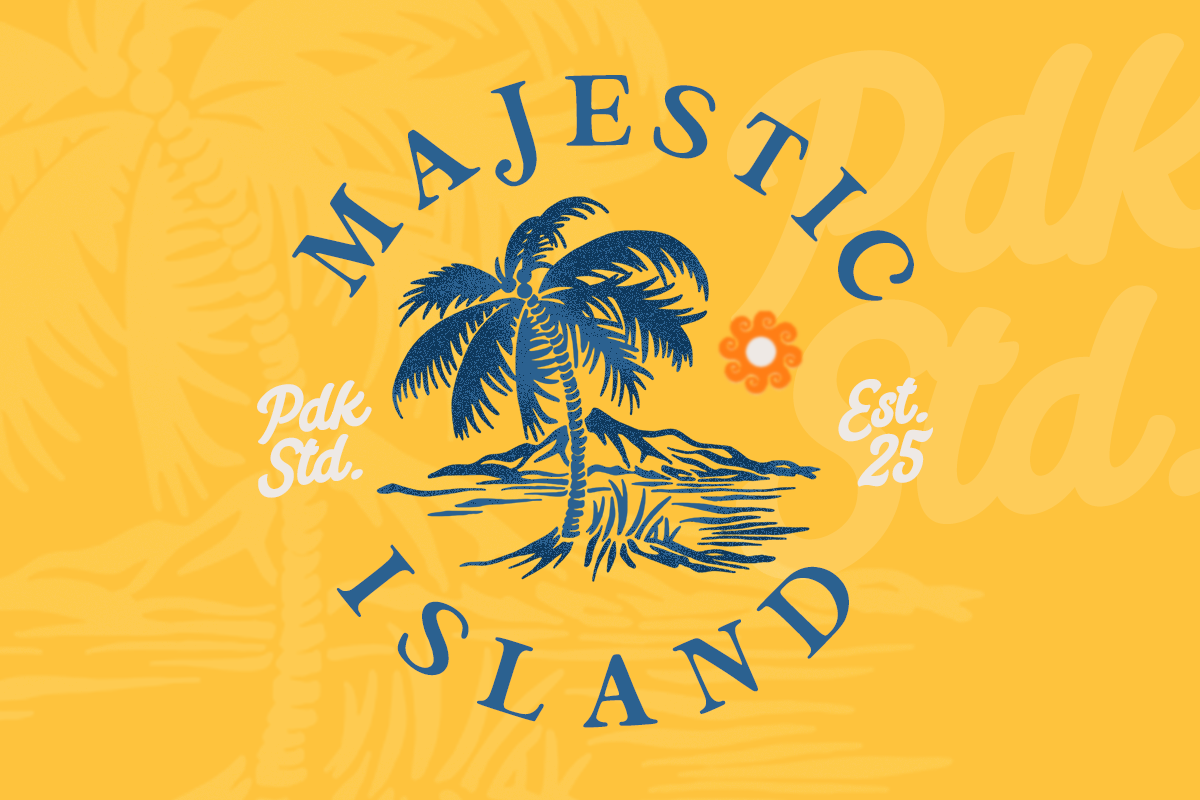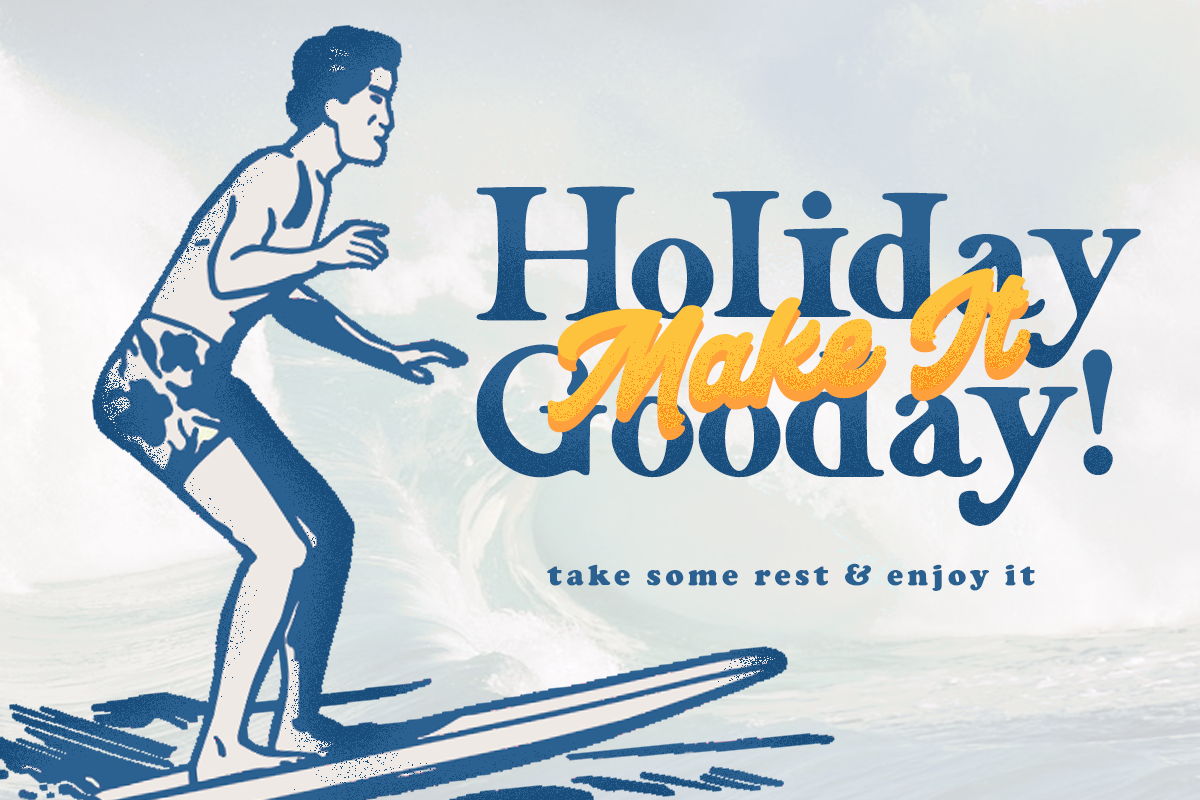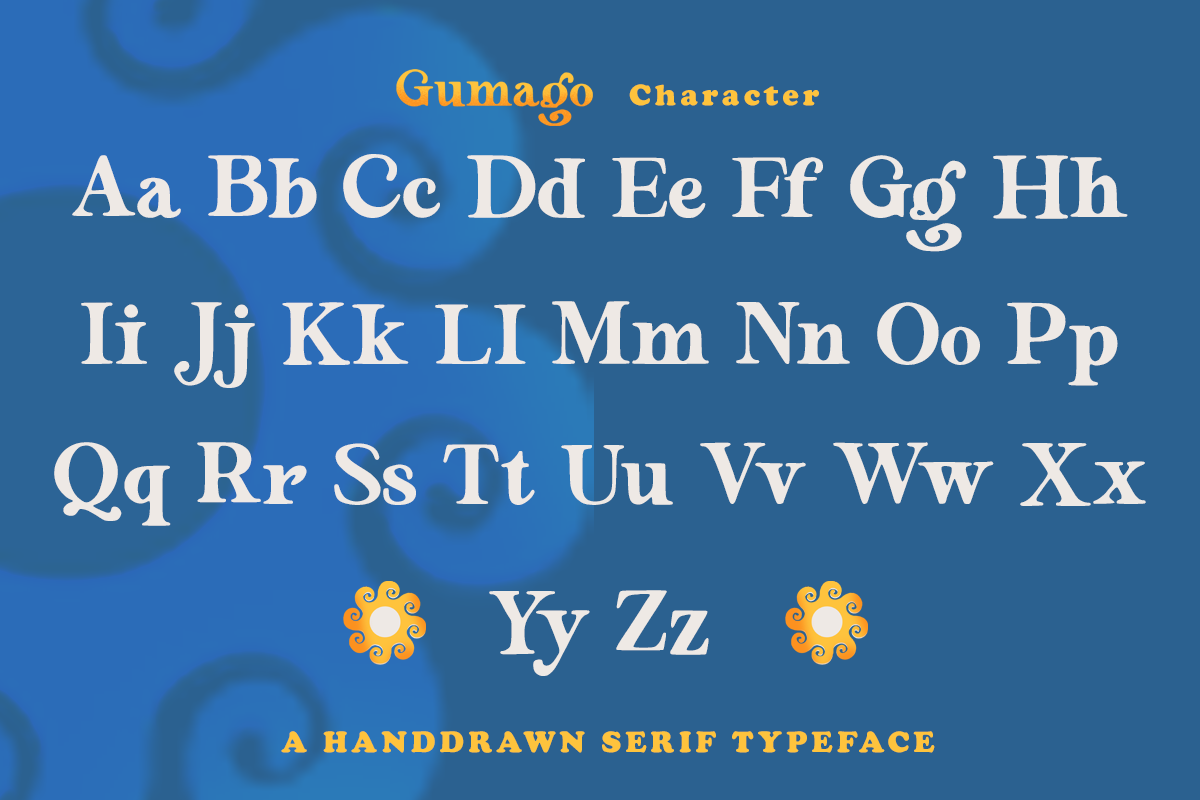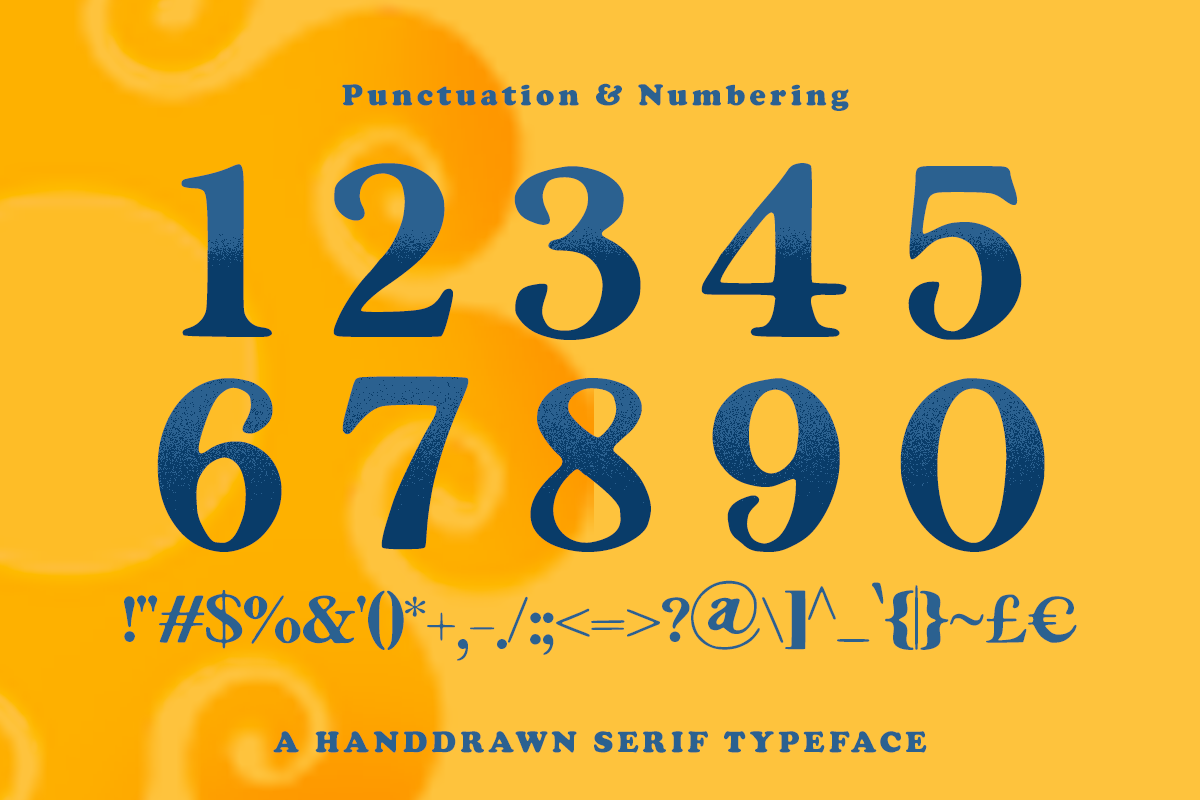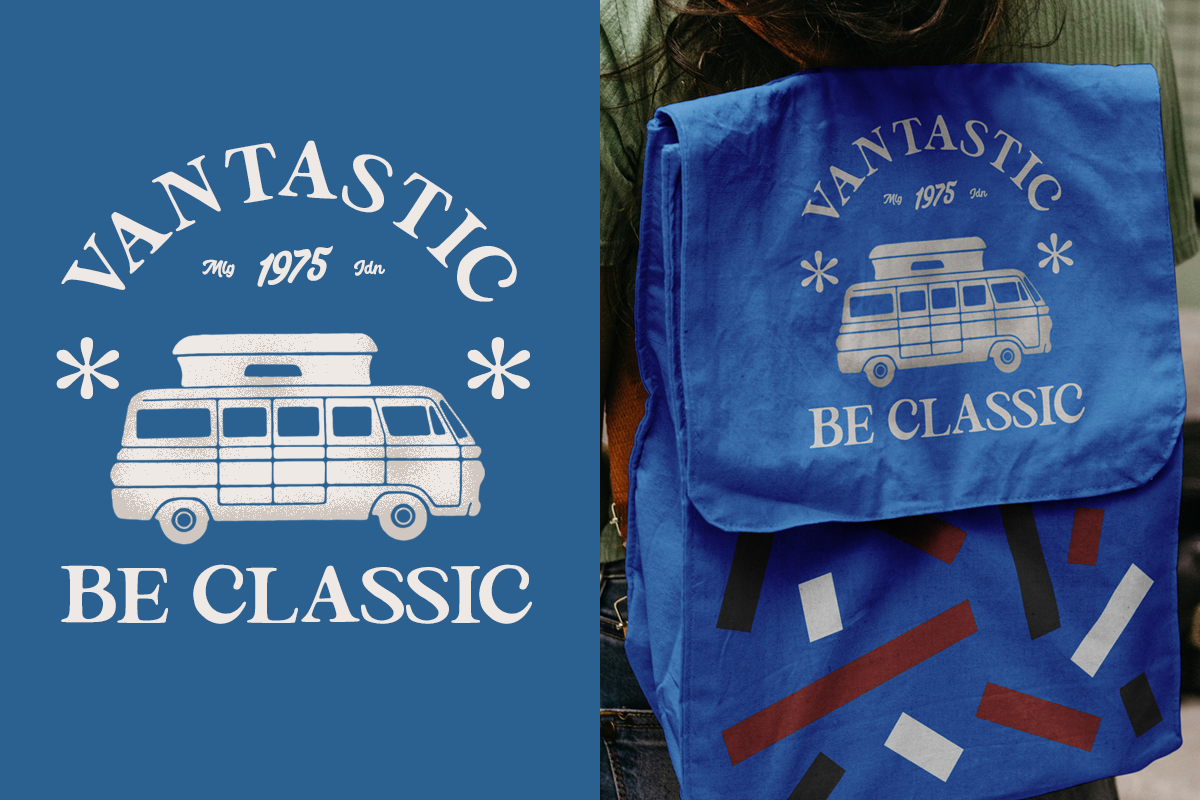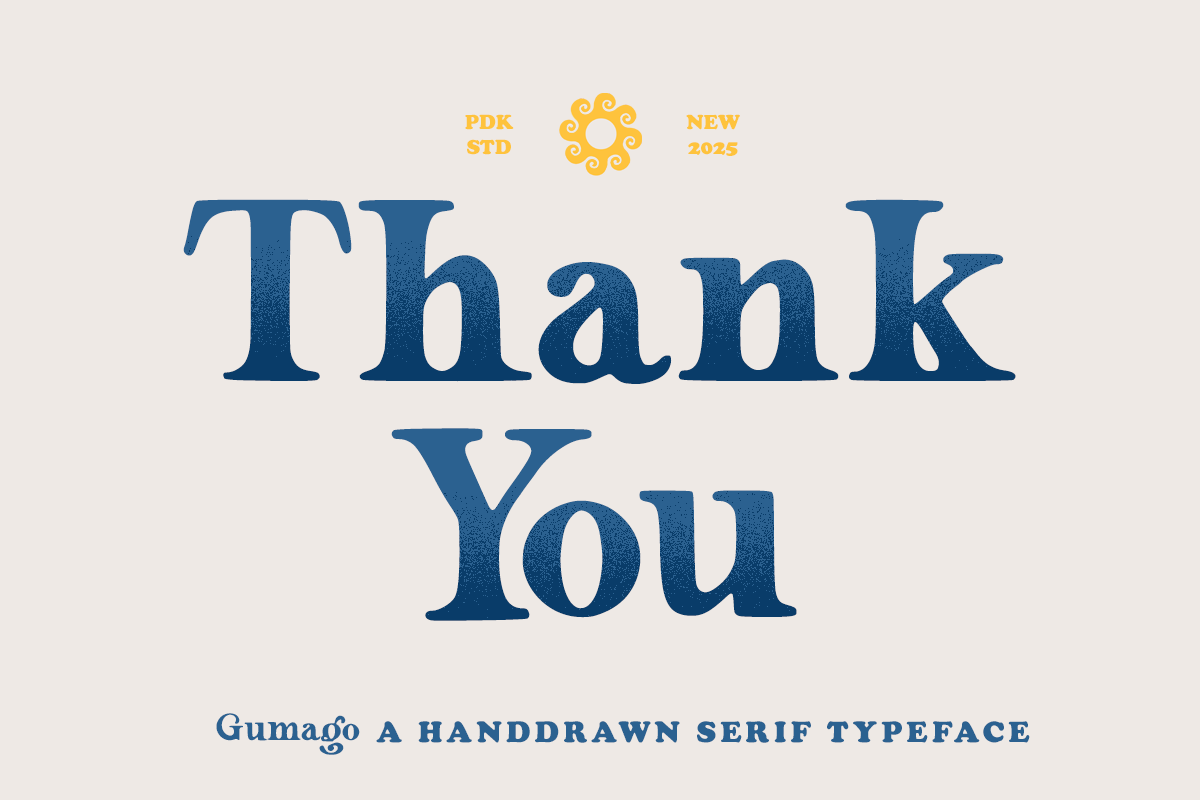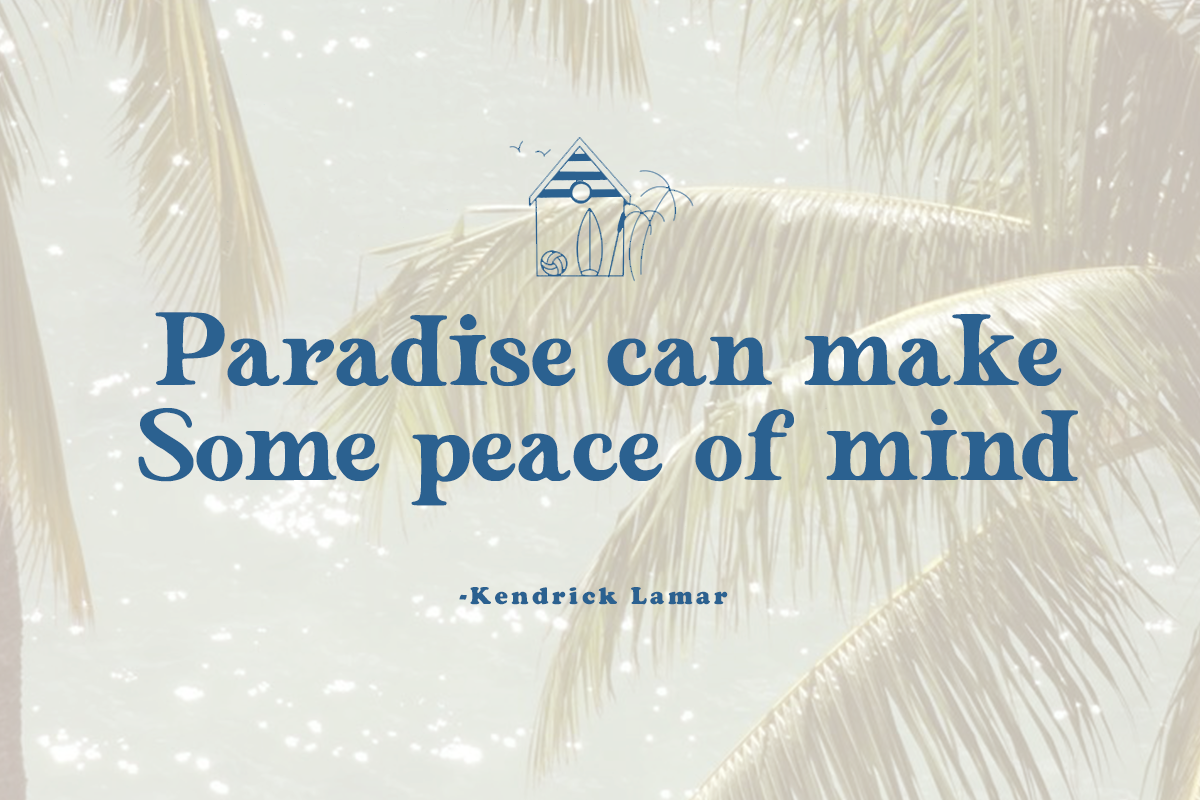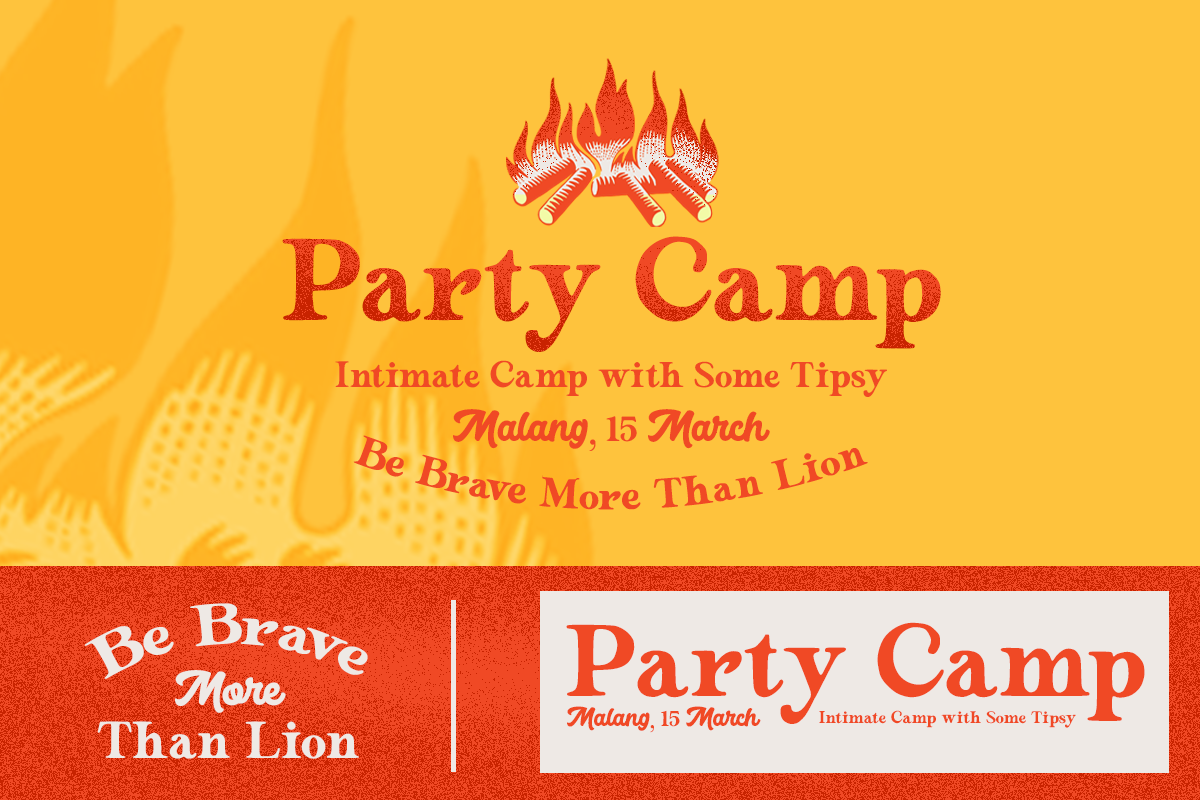
Gumago - Bold Playful Serif
Gumago – Bold Playful Vintage Serif
Gumago is a bold, playful serif font inspired by antique prints and retro charm. With its fun curves and handcrafted feel, it’s perfect for whimsical design projects like retro posters, creative packaging, book covers, branding, kids’ apparel, and eye-catching headlines. A unique typeface that blends vintage character with a fun, modern twist.
- 1 Style: Regular
- Full Character Set: Uppercase, lowercase, numbers, symbols, and punctuation